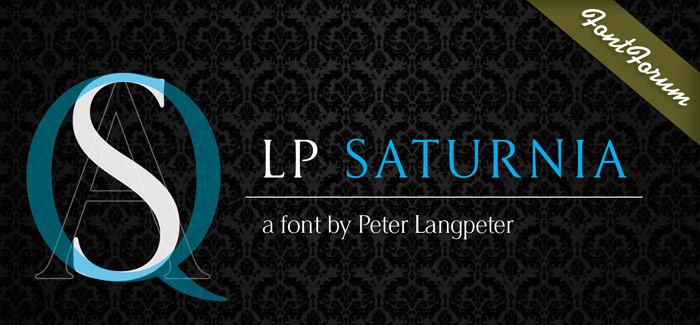
LP Saturnia font
After designing two script fonts (lp Pinselschrift, lp Bambus), Peter Langpeter has now drawn an elegant Antiqua, namely lp Saturnia font, derived and conceived from his work in developing headlines and logos.
The aim was to create a modern interpretation of the classical Roman letters (Capitalis Monumentalis or Trajan by Carol Twombly), avoiding the archaic look of these letter forms. Also, the difficulty of spacing characters with excessive forms, such as the long tails of ‘K’ and ‘R’, are avoided. Additionally, lp Saturnia also comes with lower case characters.
The result is a contemporary and elegant typeface that is more suitable for practical use, without renouncing the classical Roman character.